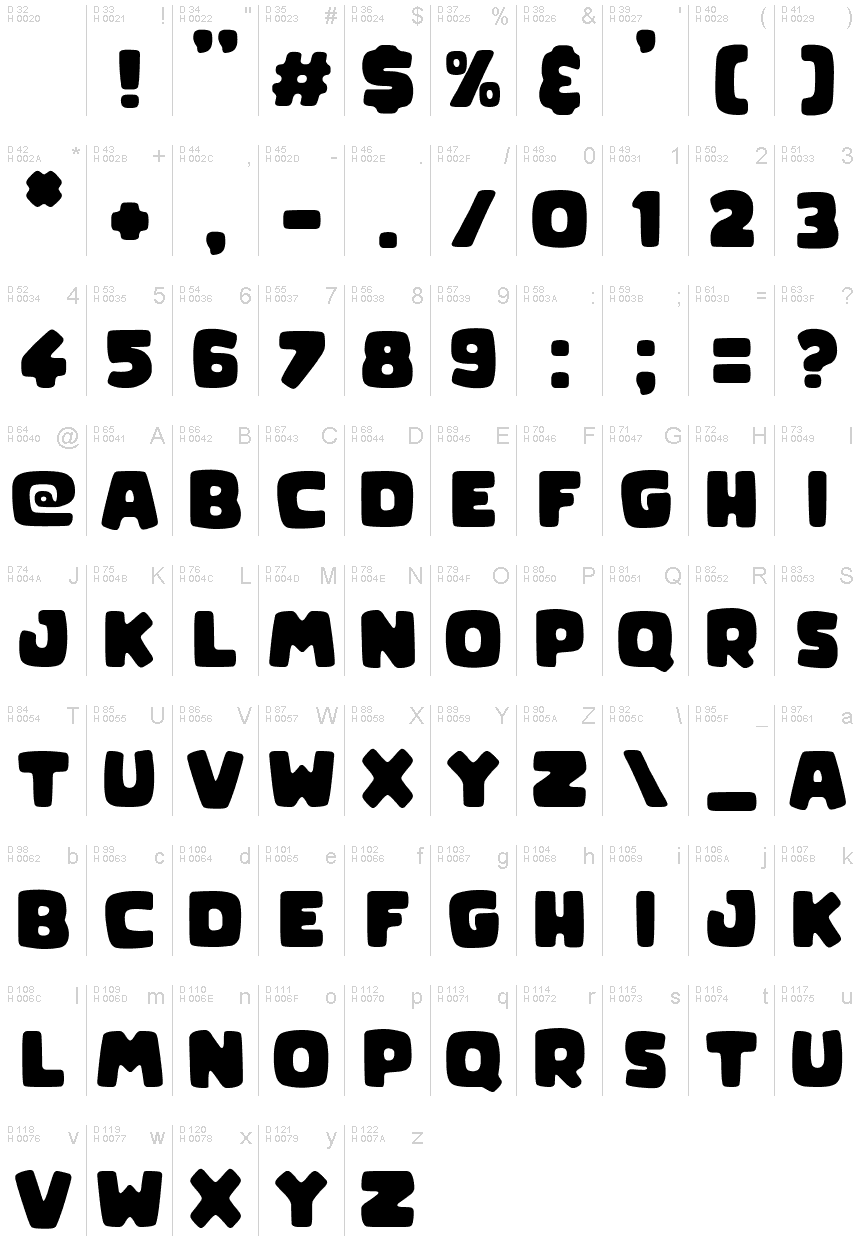
Clone Age
Dive into the whimsical world of Clone Age, a display font that bursts with cartoonish charm! Designed by imagex, this extra-bold, semi-expanded typeface is a playful powerhouse perfect for injecting fun into any creative endeavor. Its robust letterforms and friendly curves capture the essence of lightheartedness, while still maintaining an impactful presence.
Whether you're designing an eye-catching logo, sprucing up a children's book cover, or crafting engaging game graphics, Clone Age stands out with its ability to bring life and character to your projects. Embrace its distinct style to create captivating messages that resonate with audiences of all ages. Welcome to the era where your designs come alive—welcome to Clone Age!